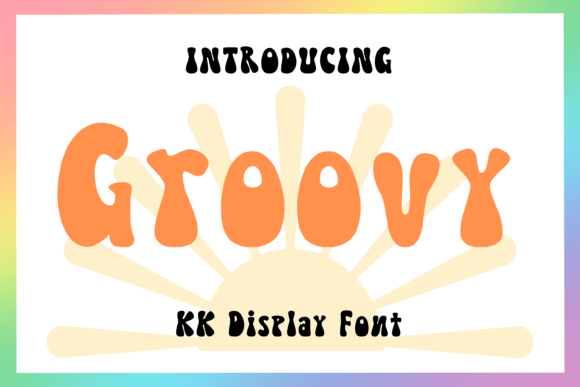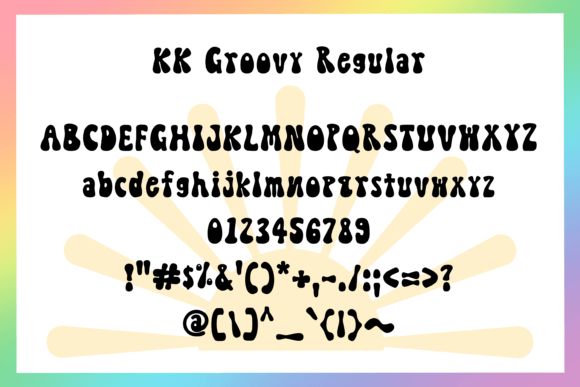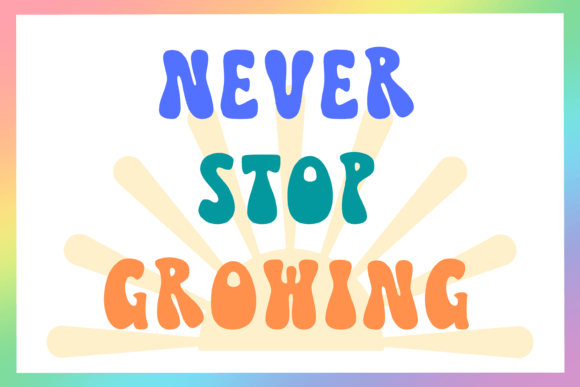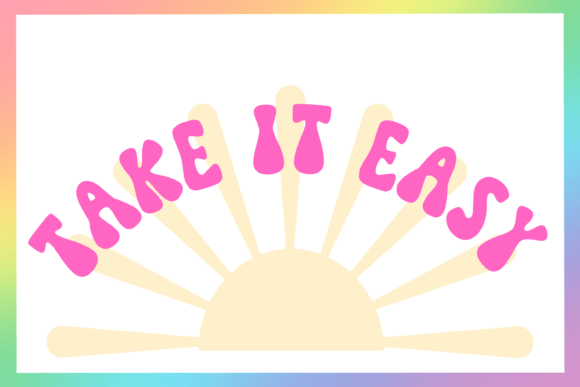
Have you ever sat at your desk, staring at a blank sheet of paper, waiting for that spark of creativity to hit? It’s a feeling we’ve all been there – the blank slate, the blank mind, and the blank page. But what if we told you that the perfect font to get those creative juices flowing is just a click away? Say hello to the Groovy Font, a fun and retro display font that’s guaranteed to bring a smile to your face.
This adorable font is perfect for designers who want to add a touch of whimsy and personality to their projects. Whether you’re creating a poster, a thank you card, or a logo, the Groovy Font is sure to be a hit. Its unique style and versatility make it a valuable addition to any designer’s toolkit, and its endless possibilities will keep you inspired and creative.
Groovy Font Key Features
- Unique Characteristic: Groovy Vibes – This font is known for its playful, energetic feel, making it perfect for use in creative projects, such as advertising, packaging, and digital media.
Groovy Font Review
As a designer, I’ve had the chance to play around with Groovy Font, and I have to say, it’s got some ✨ great qualities! First off, the font’s unique blend of vintage and modern elements makes it a standout. The Groovy Font family includes a range of weights and styles, which gives designers a lot of flexibility when it comes to creating visually appealing typography.
Here are some specific things that I think work well with Groovy Font:
- ✨ Unique character set: The font’s quirky, hand-drawn feel is really appealing and adds a lot of character to any design.
- ✨ High legibility: Despite its unconventional look, the font is surprisingly easy to read, even at smaller sizes.
- ✨ Versatile: As I mentioned earlier, the font family includes a range of weights and styles, making it suitable for everything from body text to headlines.
That being said, there are a few things that might give designers pause:
- ⚠️ Limited language support: Groovy Font only includes a basic set of characters, which might limit its usability for designers working with languages that require more complex typography.
- ⚠️ Not ideal for small text: While the font is legible at most sizes, it can start to look a bit fuzzy when scaled down too small.
Overall, I think Groovy Font is a fun and versatile font that’s perfect for designers looking to add a bit of personality to their work. Just be aware of its limitations, and you’ll be golden!
Getting the Most Out of Groovy Font
To get the most out of Groovy Font, use it sparingly to add emphasis to key points or headings. You can also experiment with different font sizes and colors to create visual interest. Remember to keep your text readable and easy to understand.
Common use cases for Groovy Font include:
- Headings and subheadings
- Emphasizing key points or calls to action
- Adding visual interest to text-heavy designs